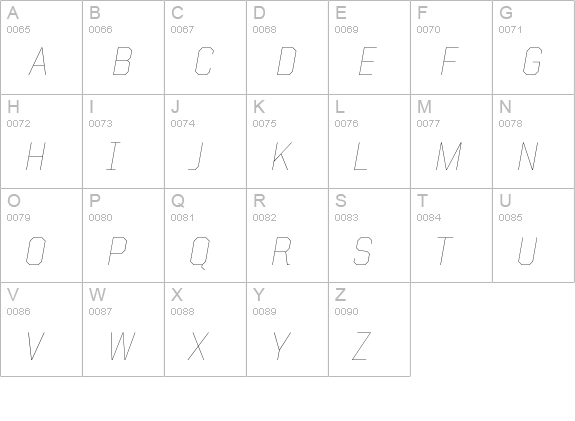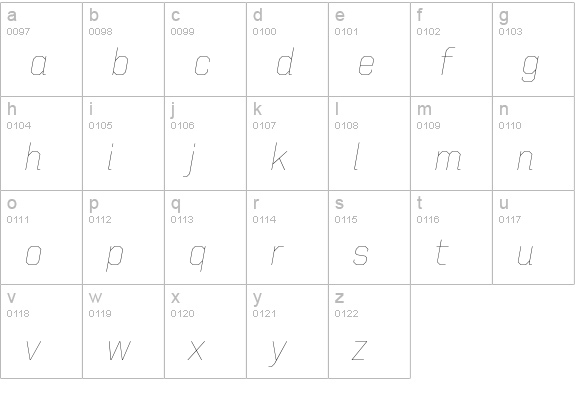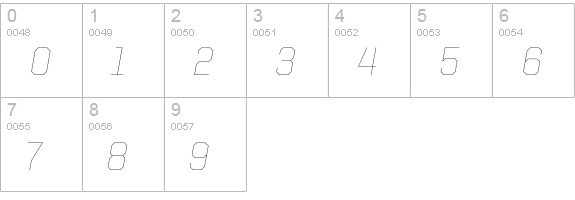
United Italic Reg Thin Font Details
United Italic Reg Thin is a delicate, low-contrast, italic variant in the United typeface family \xE2\x80\x94 well suited to fashion editorial, minimal branding, and high-contrast display.
United Italic Reg Thin is a sophisticated and elegant font that effortlessly combines modernity with timeless elegance. Its delicate and slender letterforms exude a sense of refinement and grace, making it an ideal choice for projects where a touch of sophistication is desired. With its thin strokes and graceful curves, United Italic Reg Thin adds a touch of delicacy to any design. Whether used for headlines, body text, or even logos, this font is sure to captivate and leave a lasting impression. What makes United Italic Reg Thin even more appealing is that it is freely available to download at FontsMarket.com. This means that designers, creatives, and typophiles alike can enjoy the beauty and versatility of this font without any cost or restrictions. Designed with exceptional attention to detail, United Italic Reg Thin is carefully crafted to ensure optimal legibility and readability, even at smaller sizes. This makes it a versatile choice for a wide range of projects, from print materials such as magazines and brochures to digital designs such as websites and social media graphics. The clean and refined aesthetic of United Italic Reg Thin makes it a perfect choice for projects that require a modern and sophisticated touch. Its versatility allows it to seamlessly blend into various design styles and genres, making it a reliable and go-to font for designers looking to elevate their work. Whether you are a professional designer or a casual enthusiast, United Italic Reg Thin is a font that deserves a place in your toolkit. Its timeless elegance, impeccable legibility, and the fact that it is freely available to download at FontsMarket.com make it a true gem in the world of typography. So why wait? Download United Italic Reg Thin today and let its beauty elevate your designs to new heights.